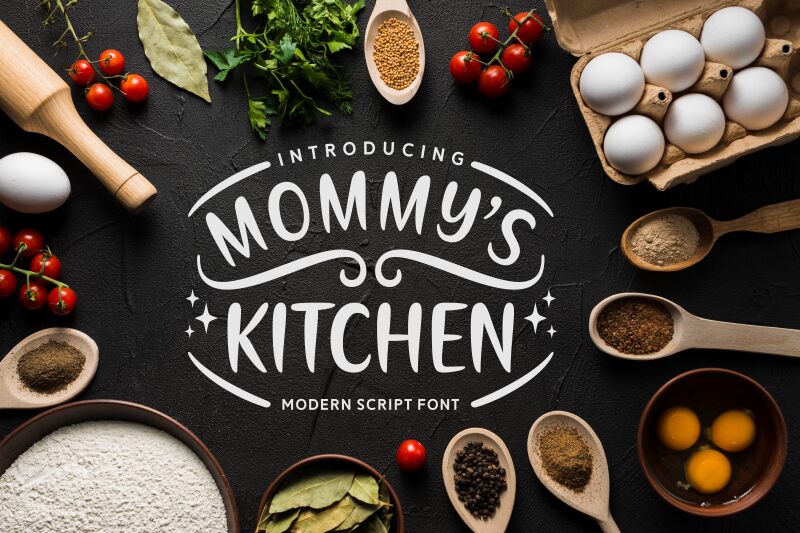
Mommy's Kitchen
Mommy's Kitchen, a modern script font designed by Situjuh Nazara of 7NTypes, captivates with its elegant yet playful charm. This distinctive typeface exudes a sense of warmth and familiarity, evoking the comfort of a cherished family kitchen. The flowing, connected strokes and delicate flourishes create a fluid, handwritten aesthetic that adds a personal touch to any design.
Mommy's Kitchen's versatility shines through its ability to elevate a wide range of projects, from rustic recipe cards and cozy cookbook covers to charming event invitations and heartfelt greeting cards. Its distinctive character makes it a standout choice for branding and packaging designs that seek to convey a homey, authentic feel, connecting with audiences on an emotional level.